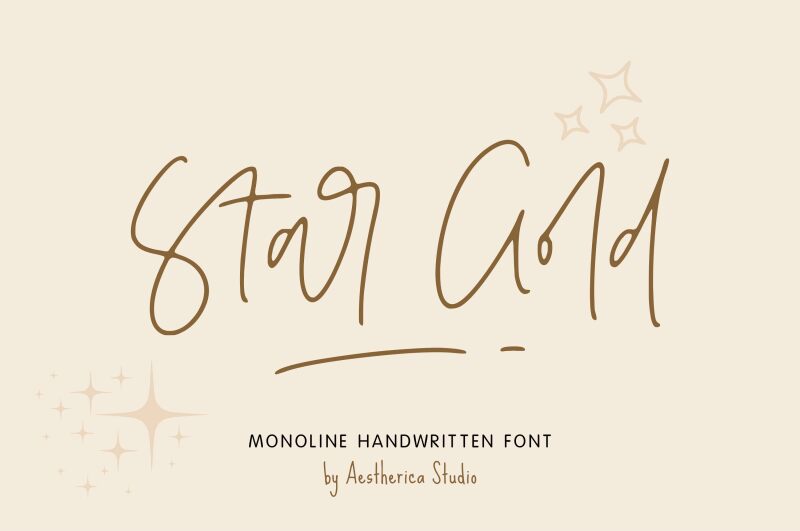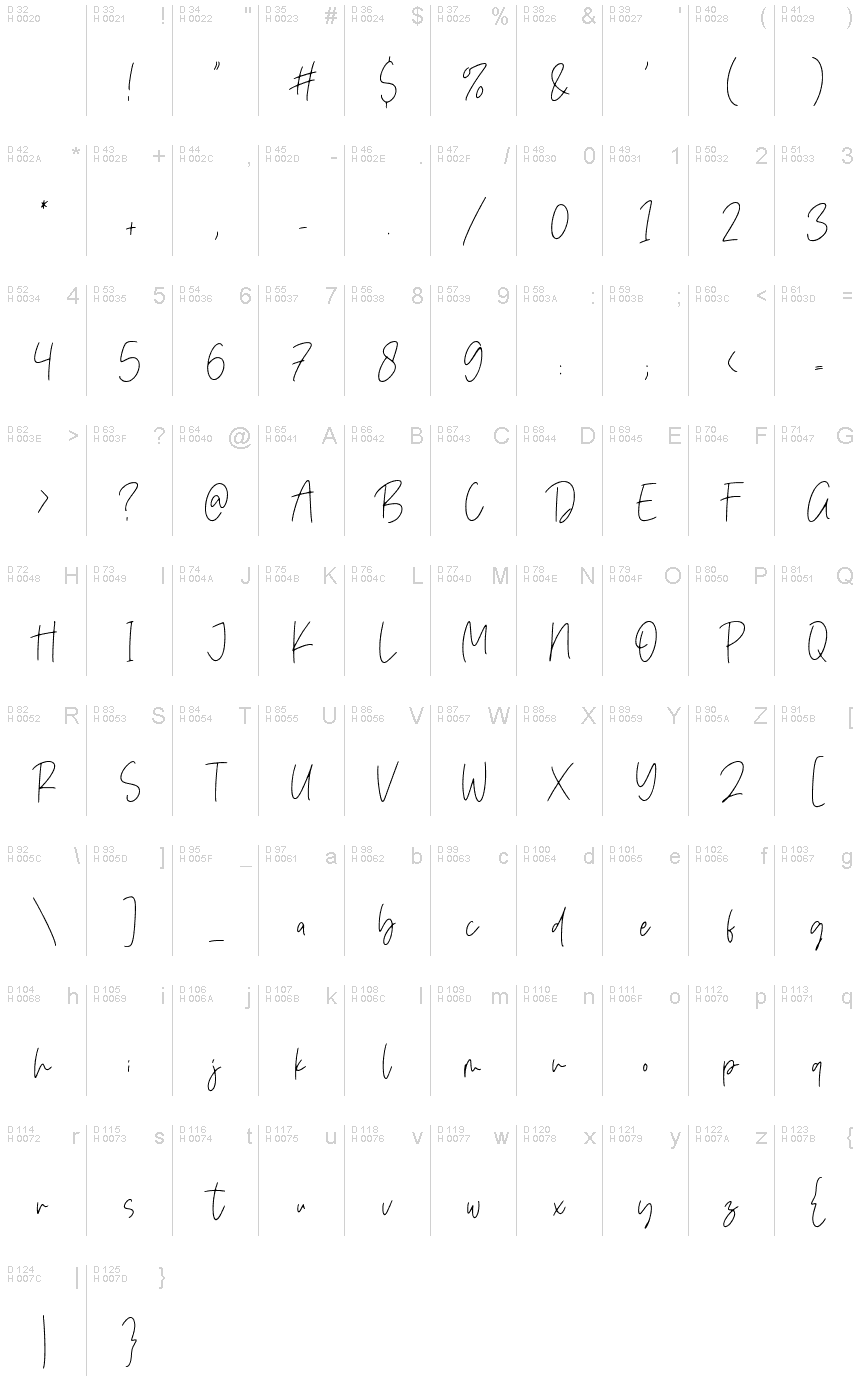
Star Gold
Star Gold, a creation of Aestherica Studio, is an exquisite monoline handwritten font that exudes elegance and sophistication. With its extra-light weight, this font adds a delicate touch to any project it graces.
Its graceful curves and flowing lines make it perfect for wedding invitations, feminine branding, and fashion-related designs. Star Gold brings a sense of refinement to product packaging and editorial layouts. Whether used in logos or social media graphics, this font effortlessly captures attention with its timeless beauty.